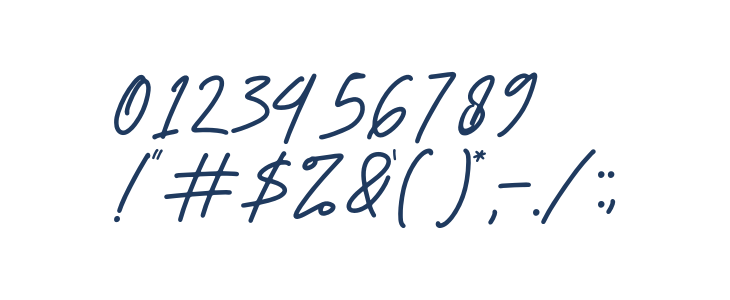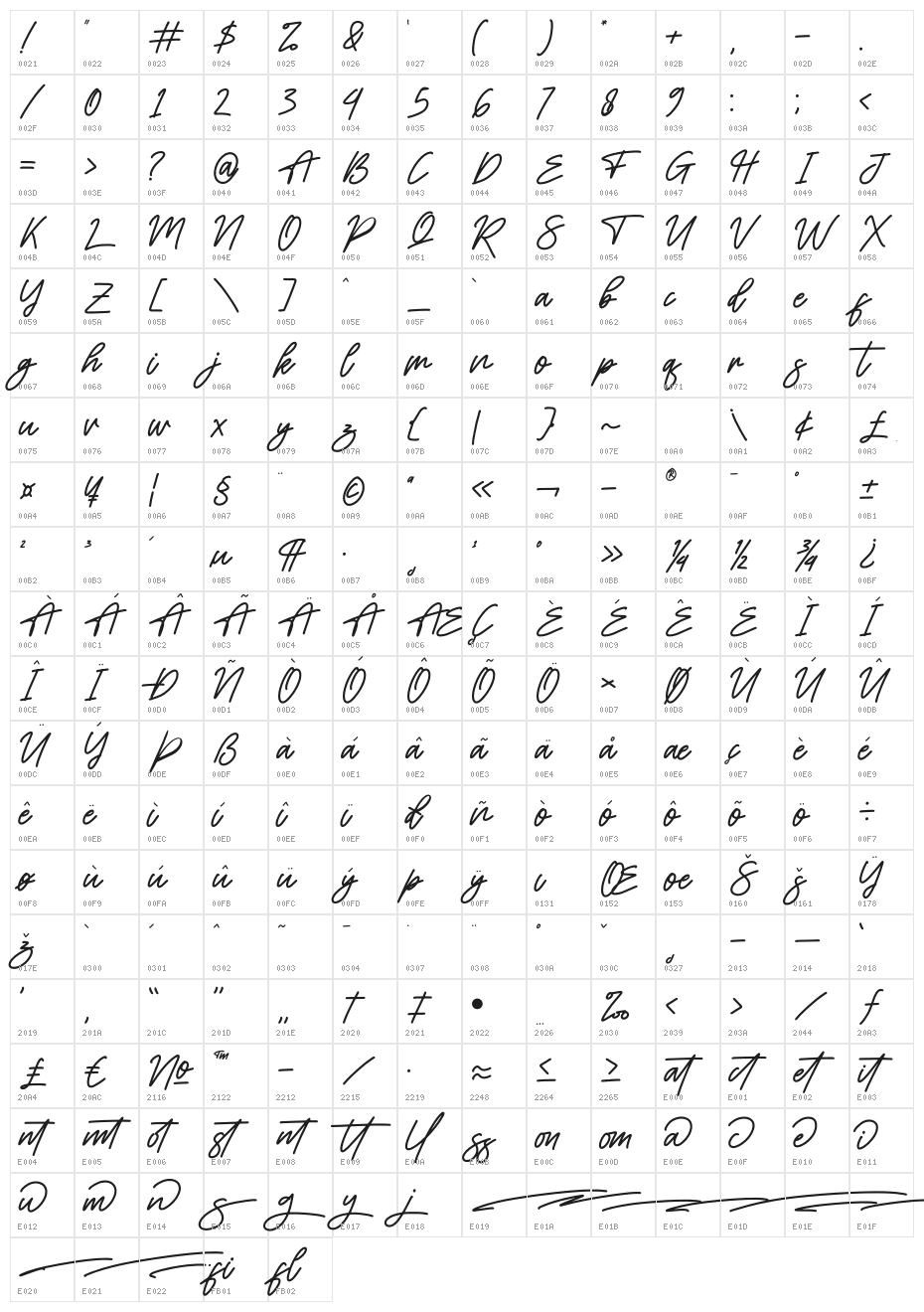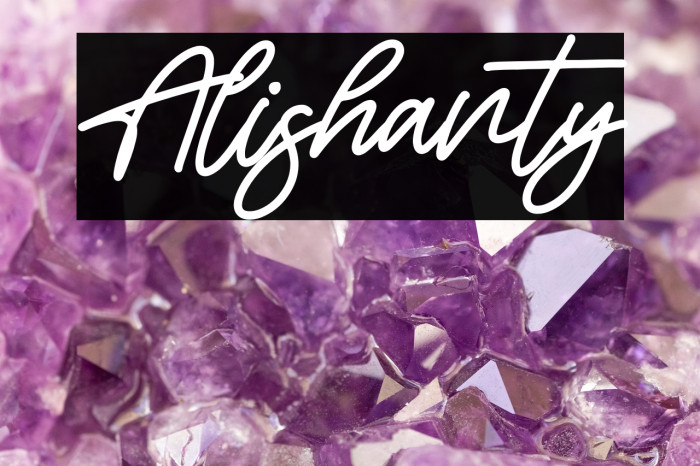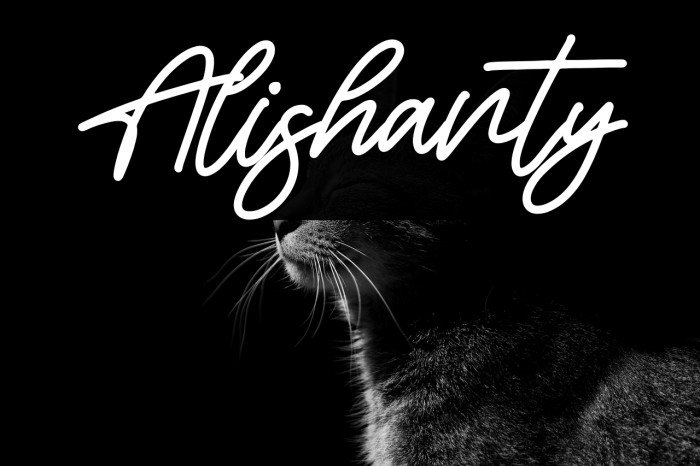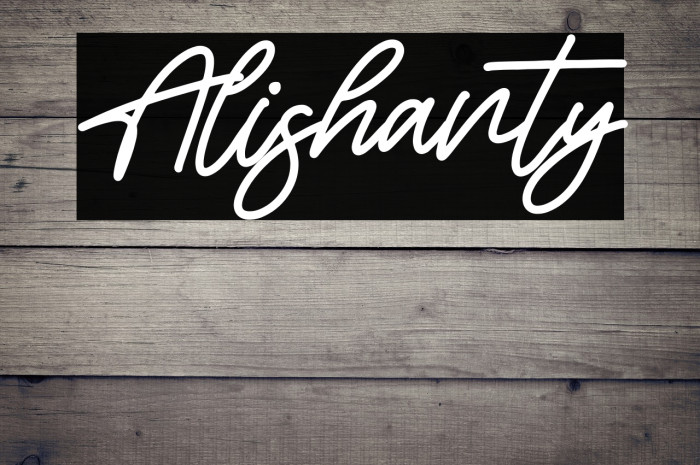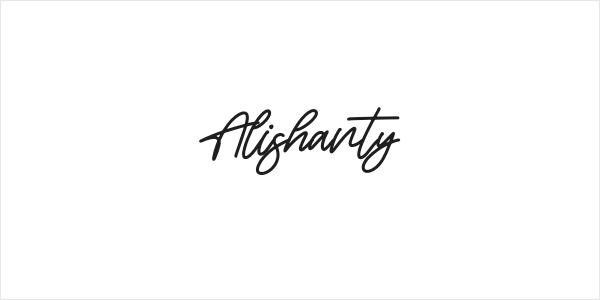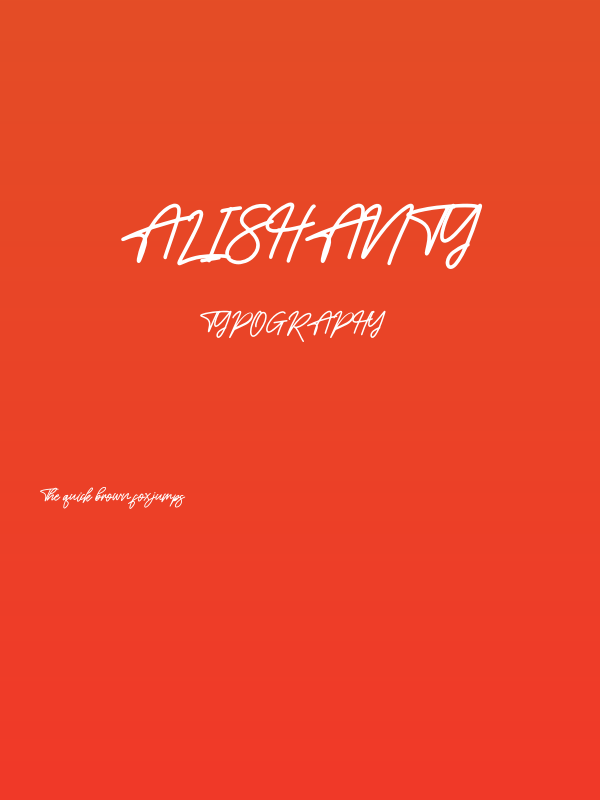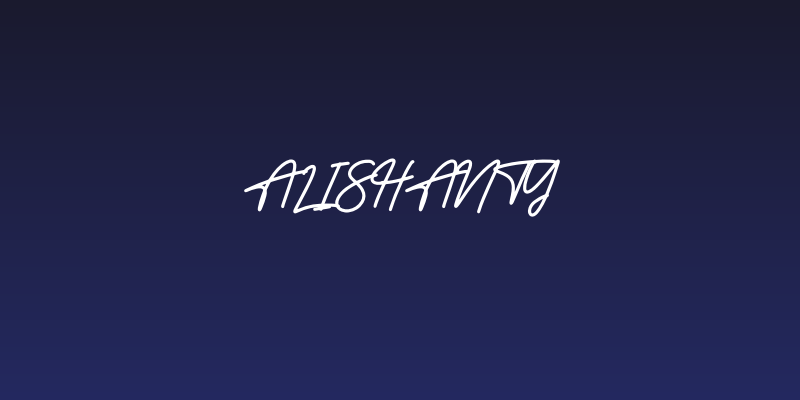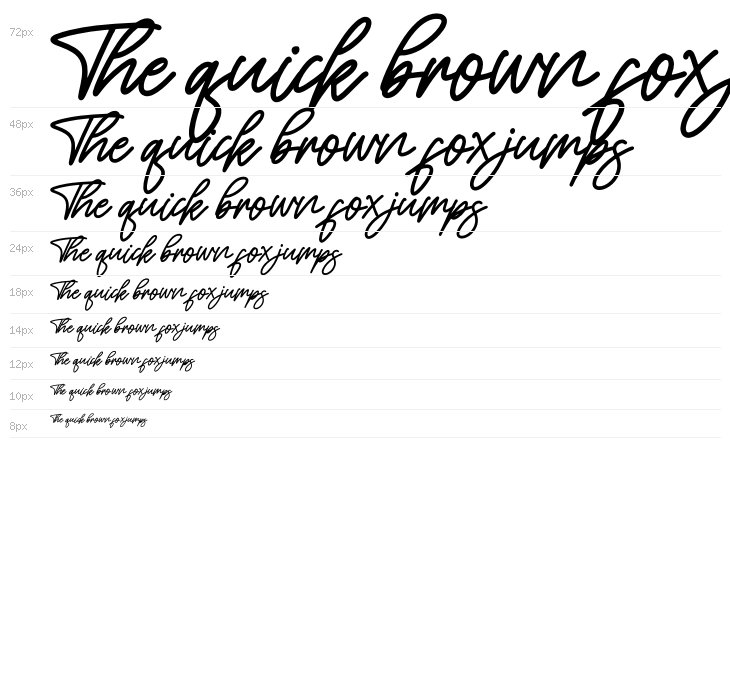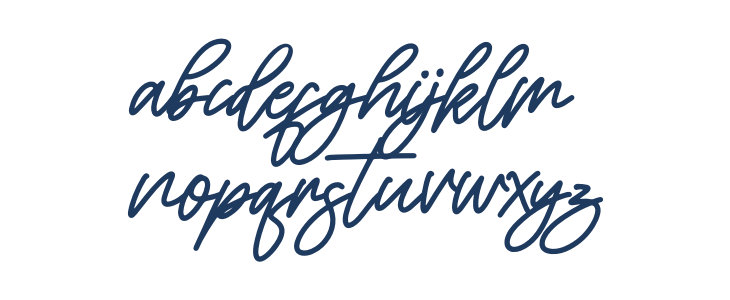
Alishanty Font
Alishanty Description
This font exudes a lively and dynamic energy with its handwritten style, characterized by fluid, cursive strokes that mimic natural handwriting. The uppercase letters are bold and slightly slanted, giving a sense of movement and spontaneity. Lowercase letters maintain a consistent flow, with some letters connecting seamlessly to others, enhancing the script-like appearance. The numerals and special characters are crafted with the same fluidity, ensuring a cohesive look across all characters. This font is perfect for projects that require a personal touch, such as invitations, greeting cards, or branding materials that aim to convey warmth and approachability.